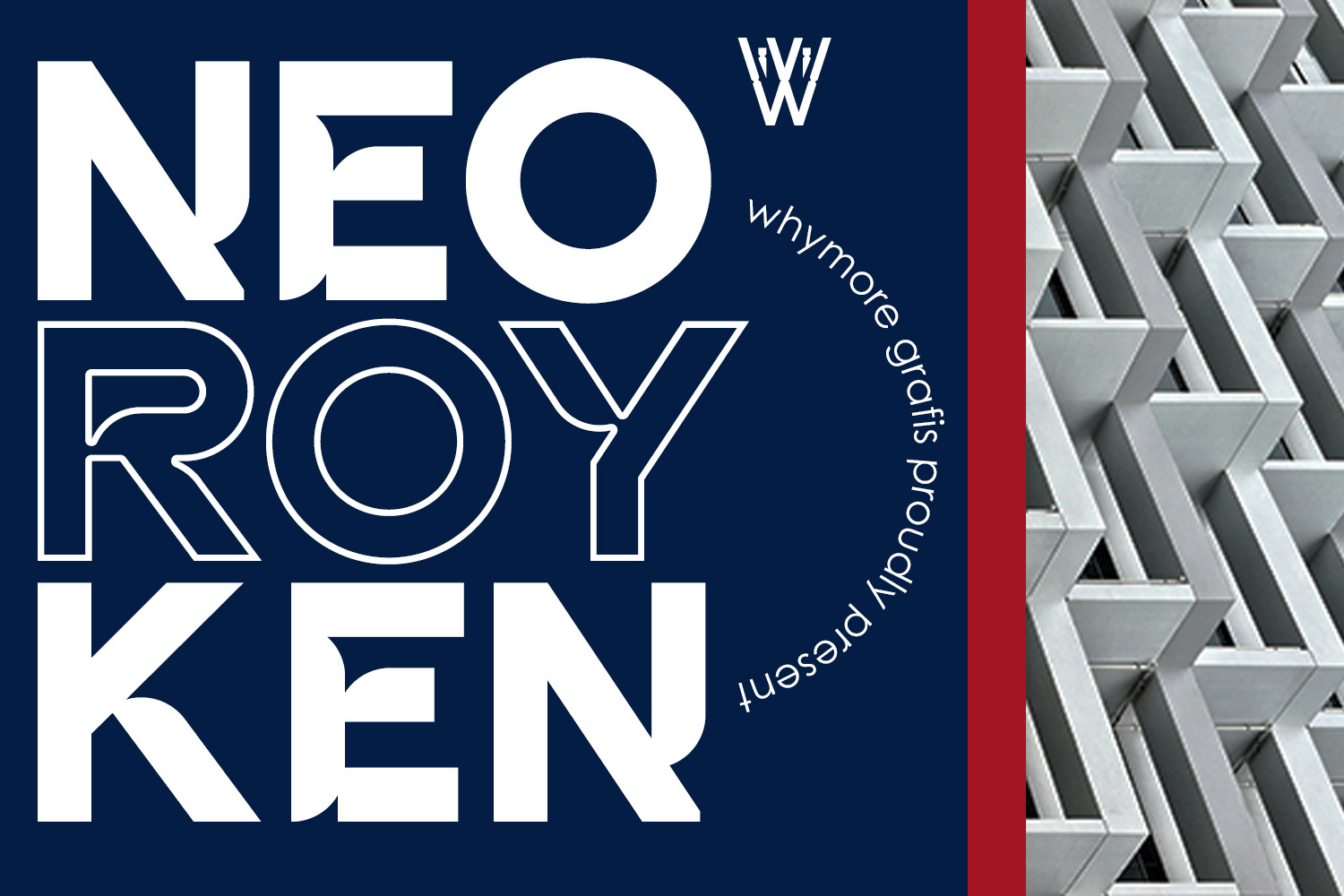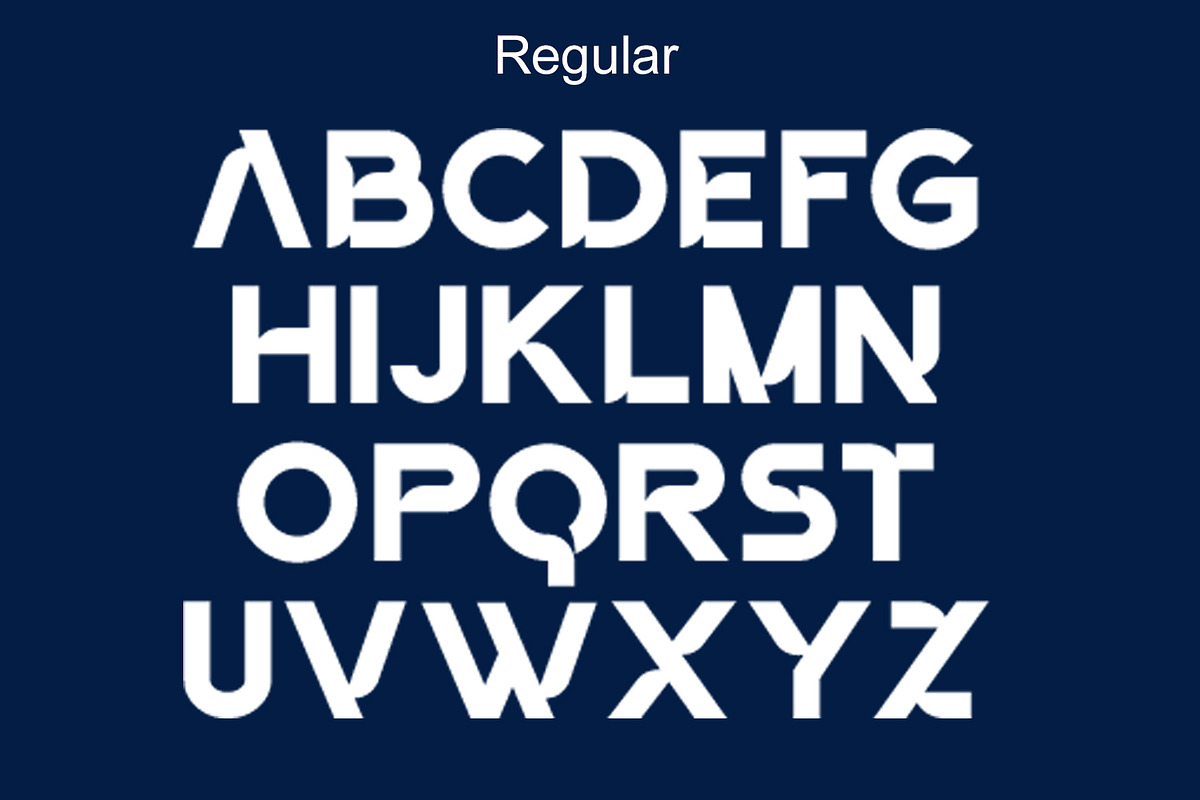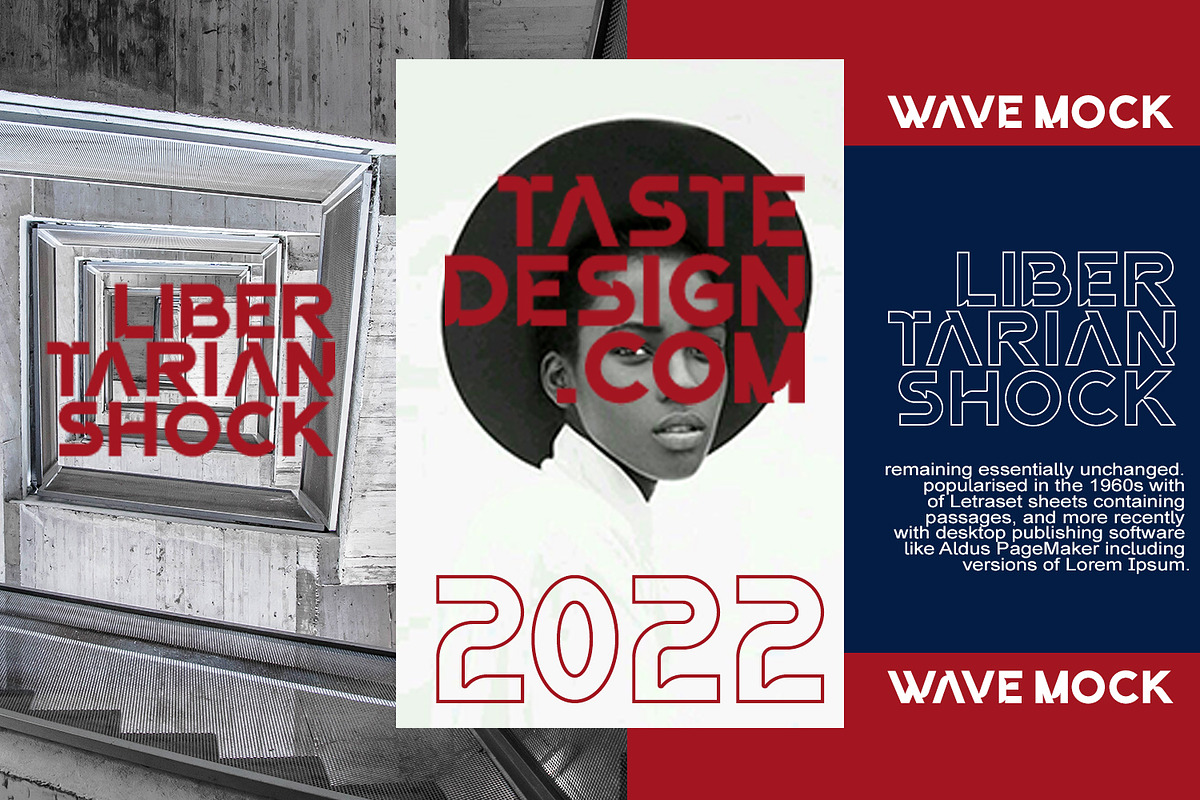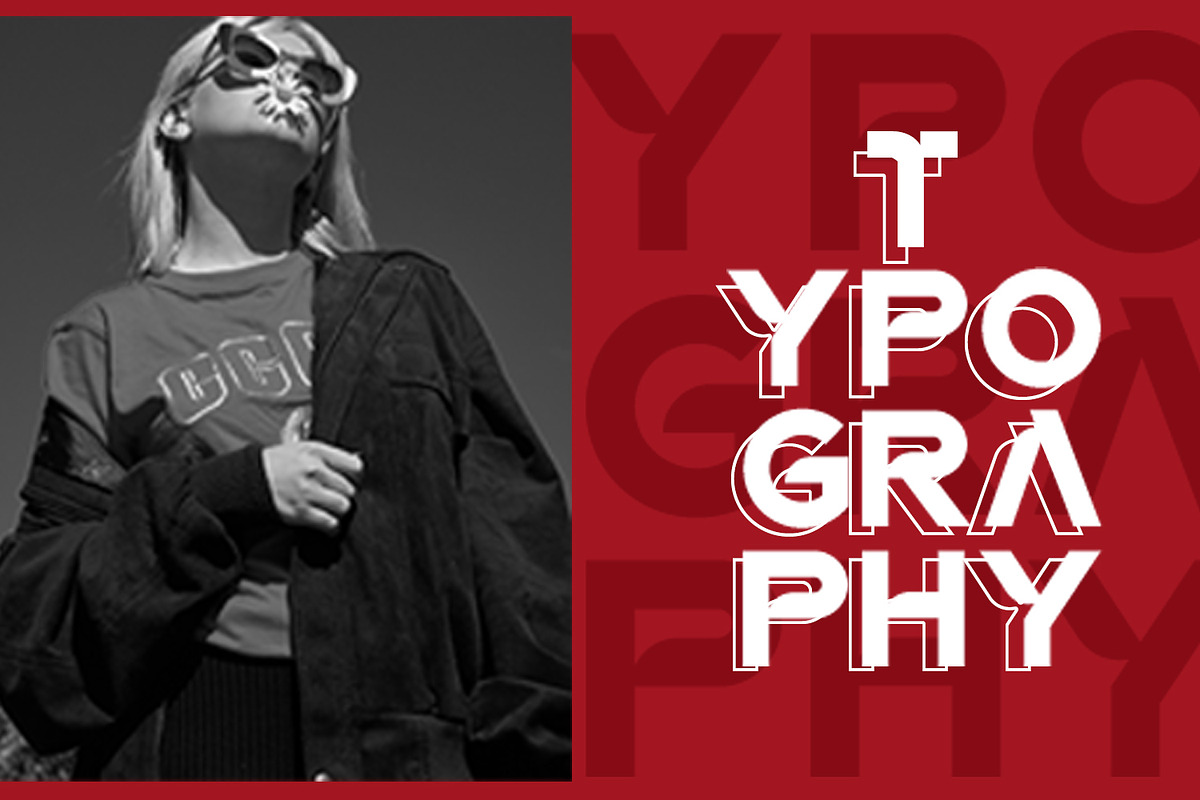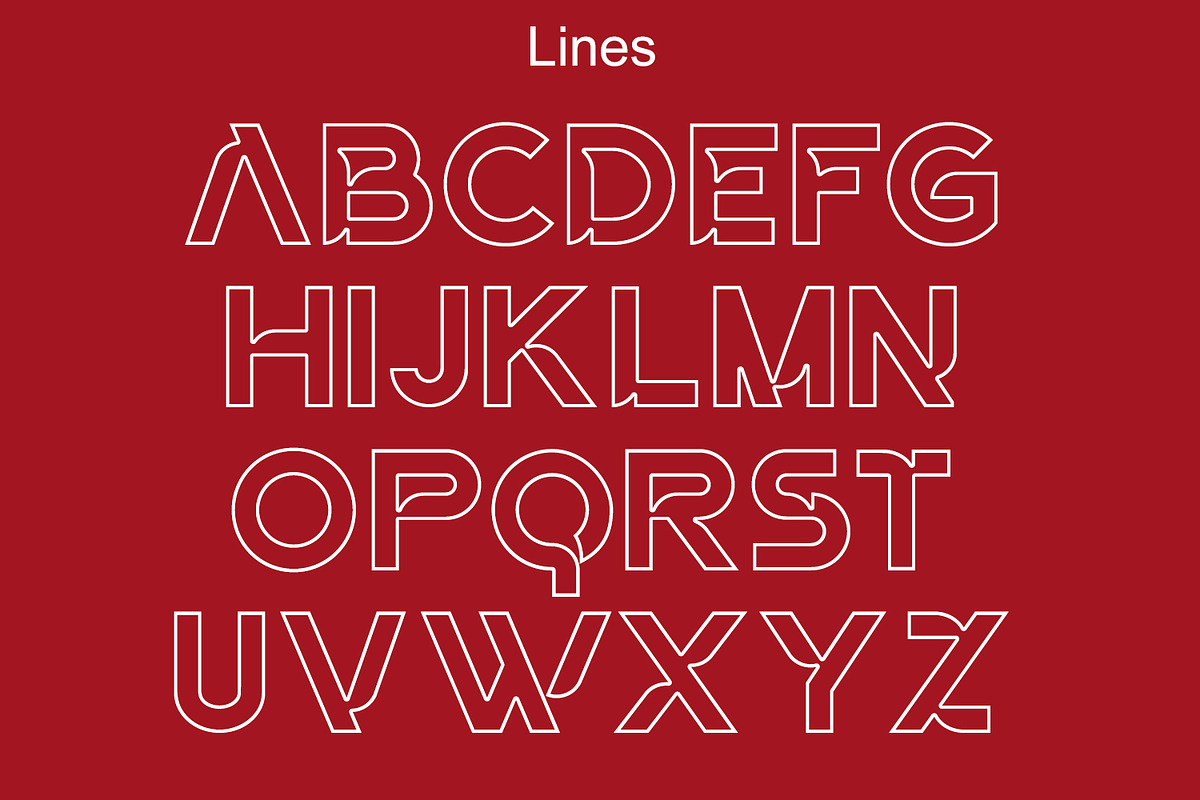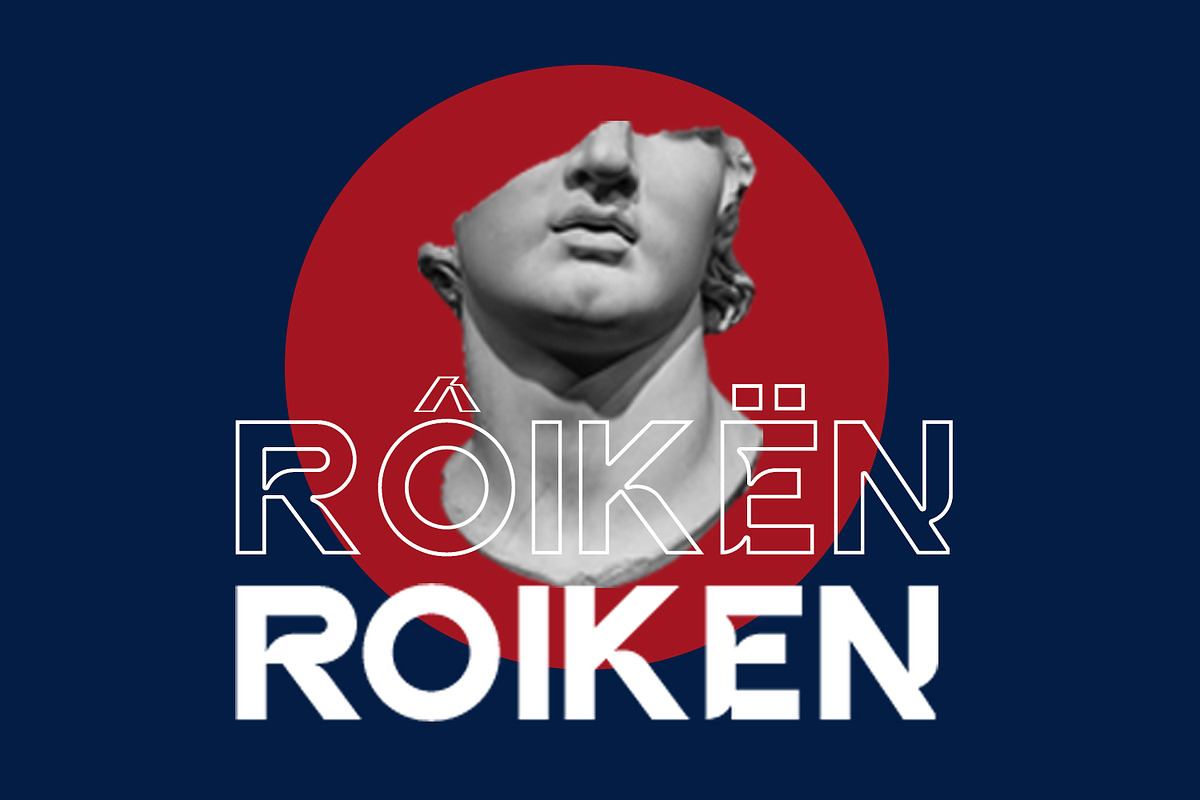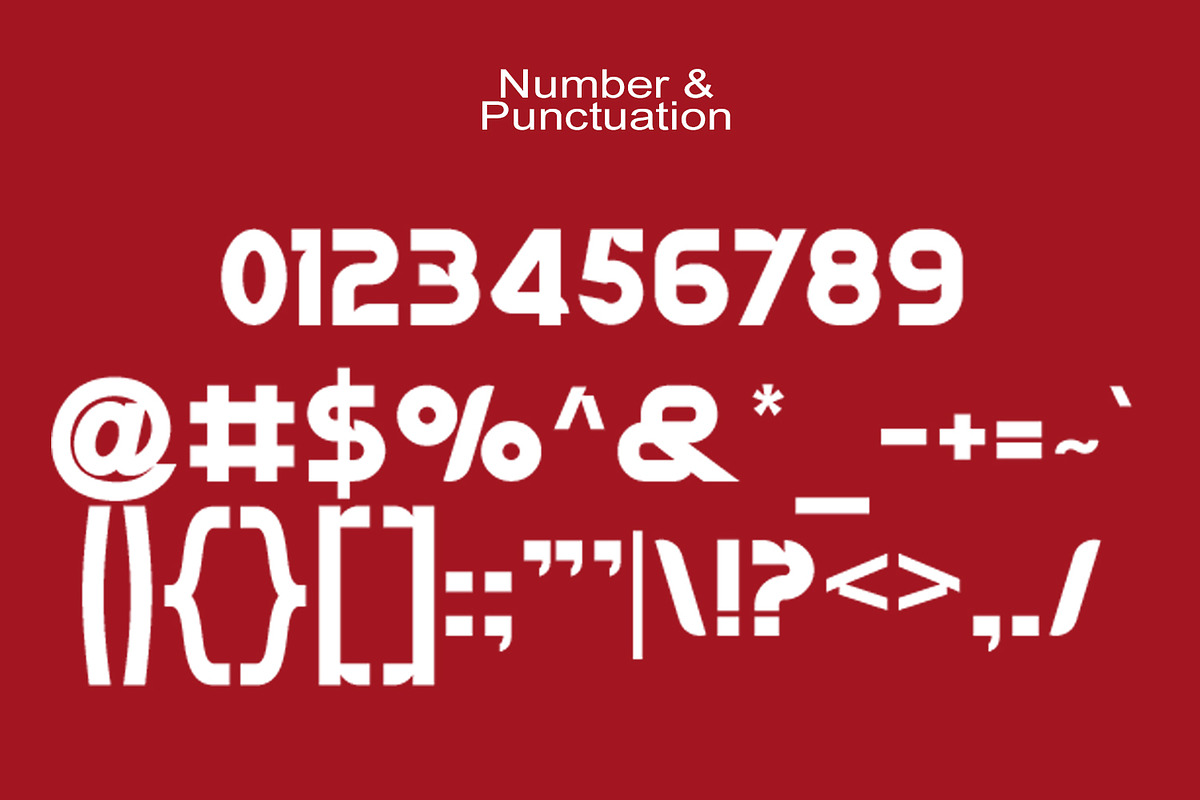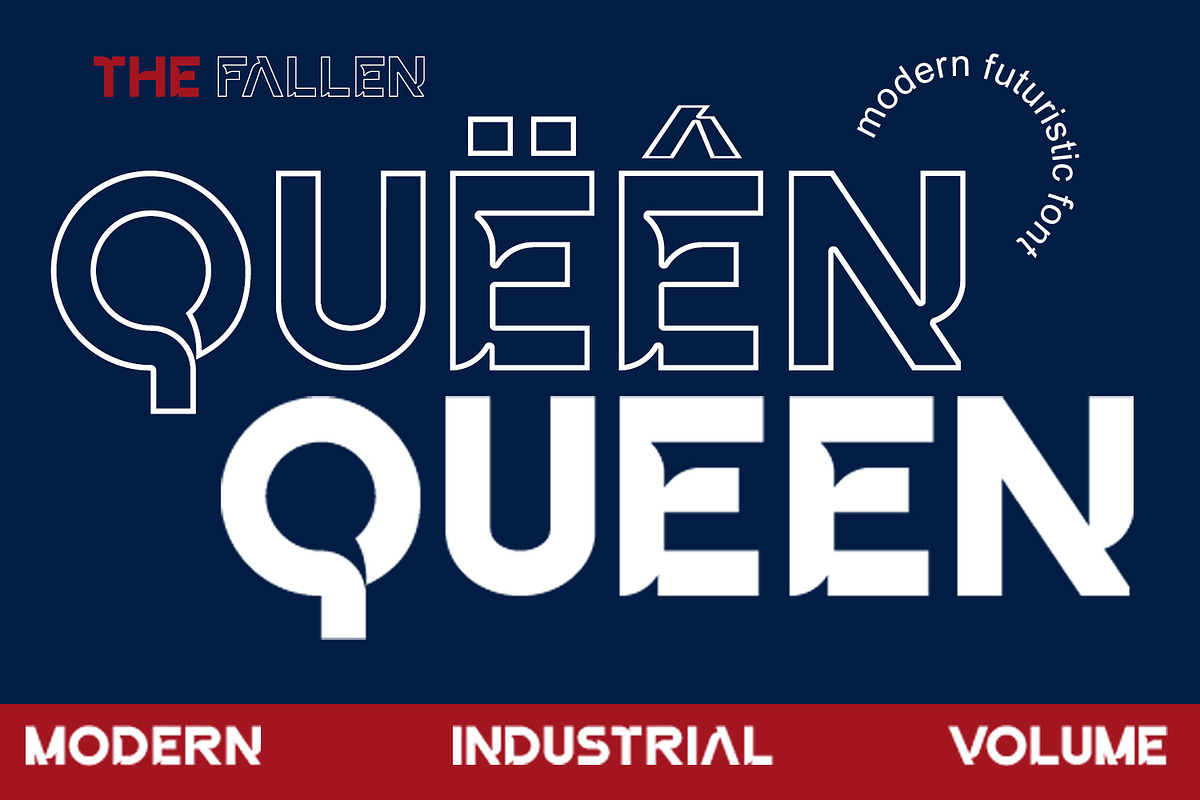
Neo Royken Font | Modern Futuristic
The Neo Royken Font is a sleek and futuristic typeface that embodies modernity and innovation. With its clean lines and geometric shapes, this font brings a sense of sophistication and forward-thinking design to any project. Whether you’re creating branding materials for tech startups, designing futuristic interfaces, or crafting sci-fi-themed artwork, the Neo Royken Font adds a touch of contemporary flair that captivates the viewer. Its minimalist design and versatility make it perfect for a wide range of digital and print applications. Embrace the future of design with the Neo Royken Font.